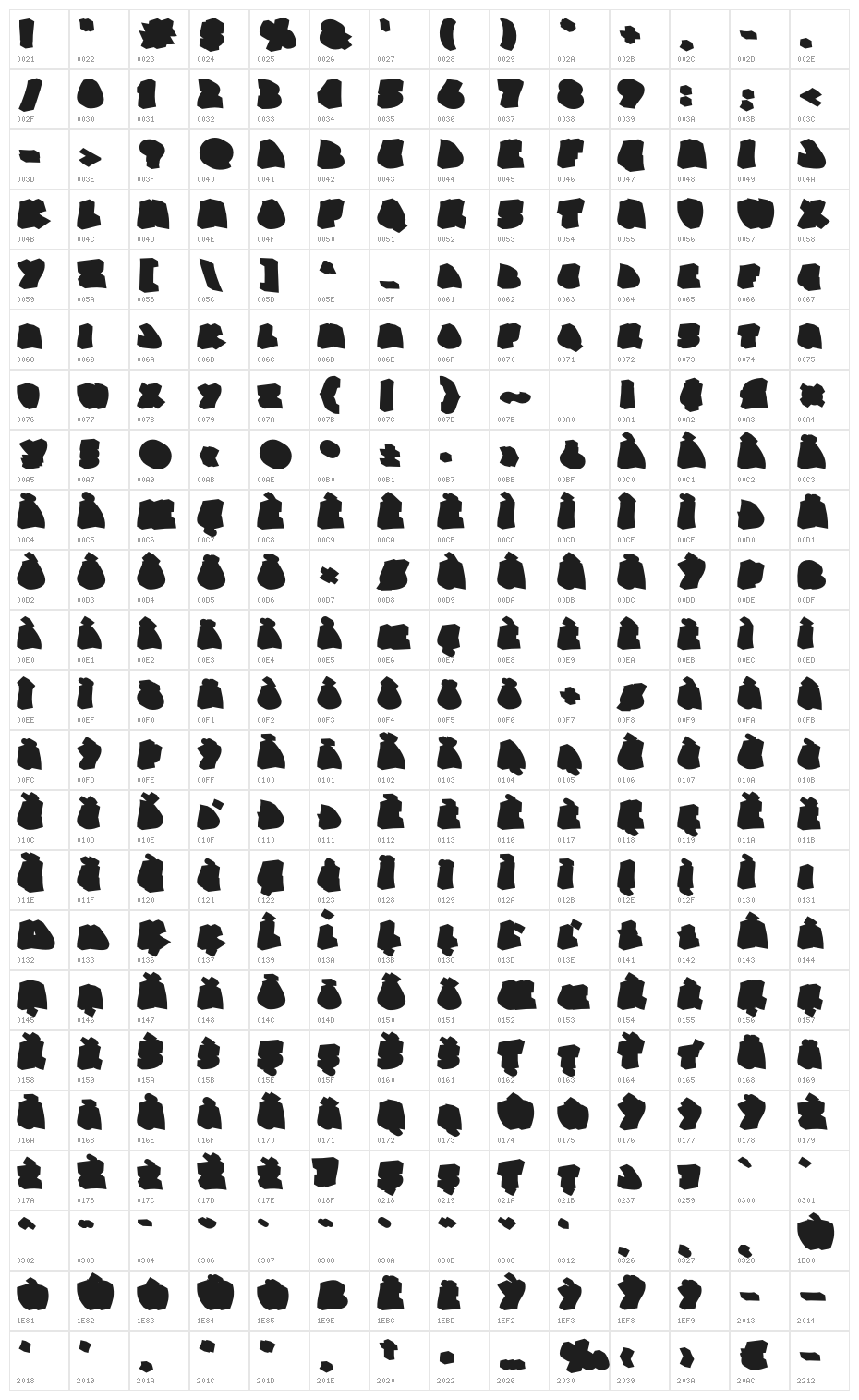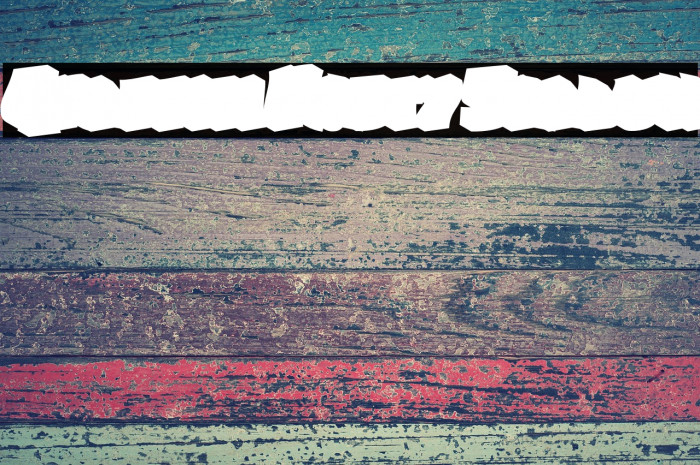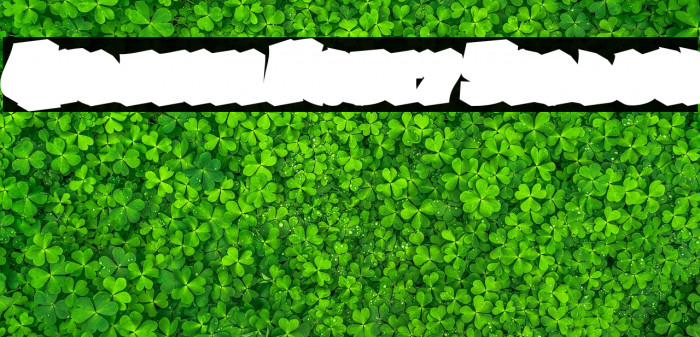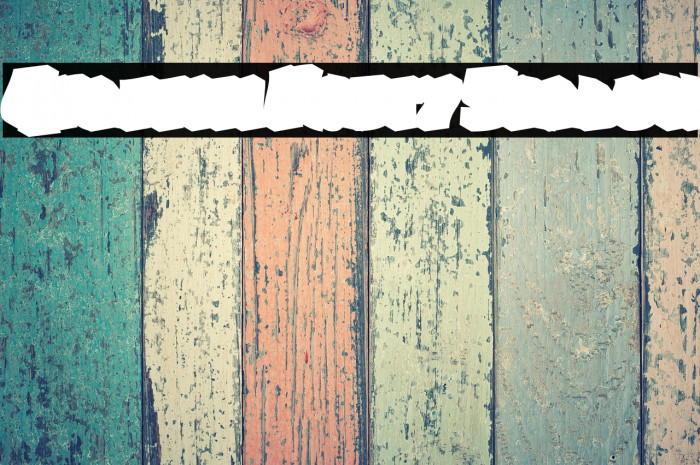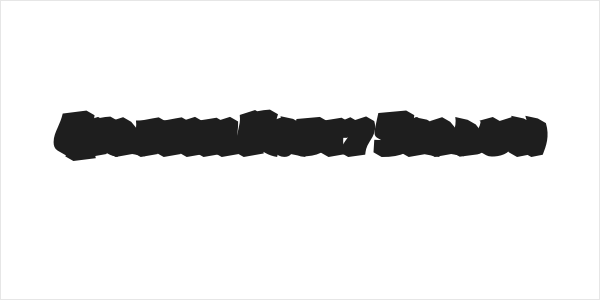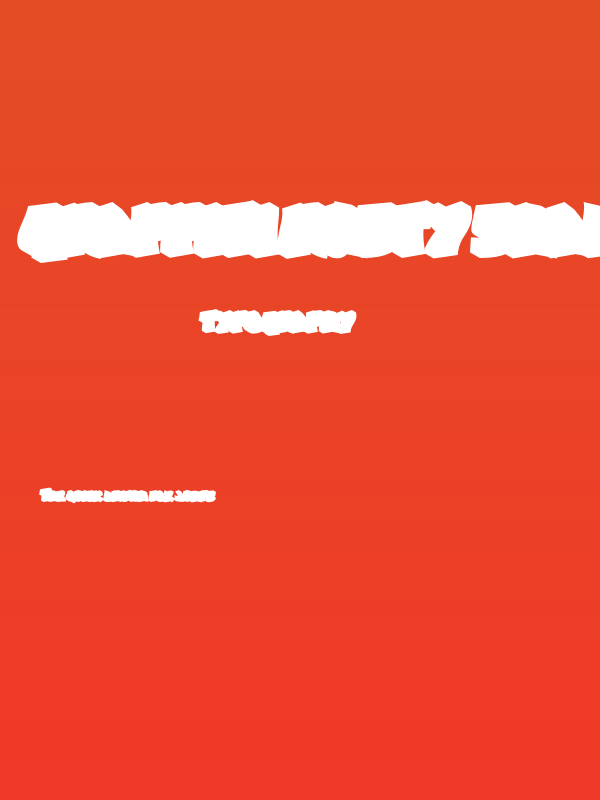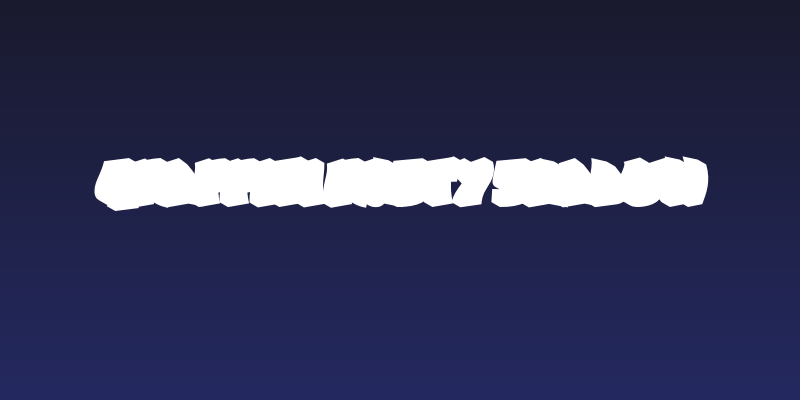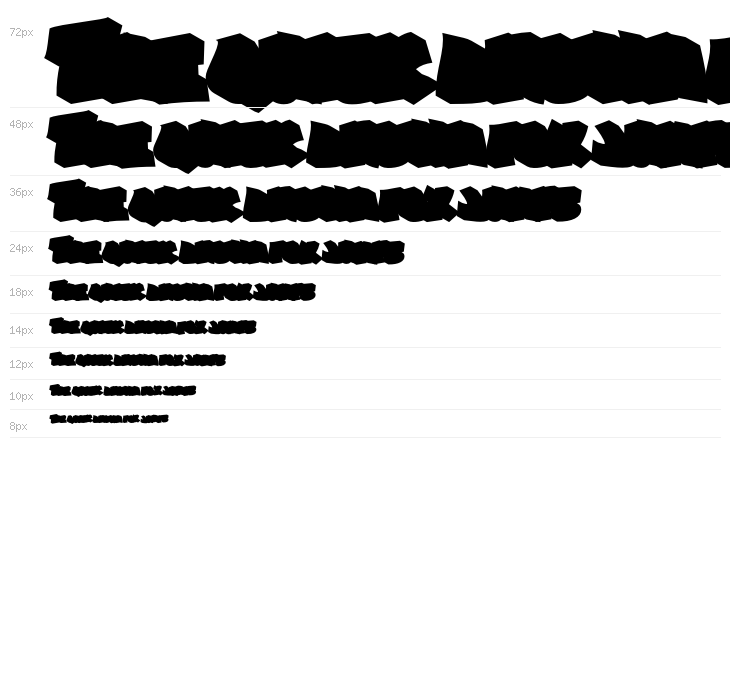
Graffiti Rusty Shadow Font
Graffiti Rusty Shadow Description
This font exudes a bold and edgy graffiti style, characterized by its thick, shadowed letters that mimic the look of spray paint on a wall. The letters are irregular and jagged, giving a sense of movement and energy. The shadow effect adds depth, making the characters appear as though they are popping off the surface. This font captures the essence of urban street art, with a raw and unrefined aesthetic that is both eye-catching and dynamic.
| Overall Style | Urban, Edgy, Graffiti |
| Use Case | Logos, Posters, Album Covers |
| Proposed Projects | Ideal for street art-inspired designs, urban-themed posters, music album covers, and edgy branding projects. |